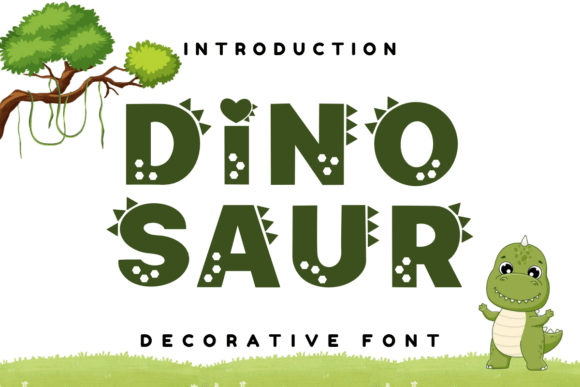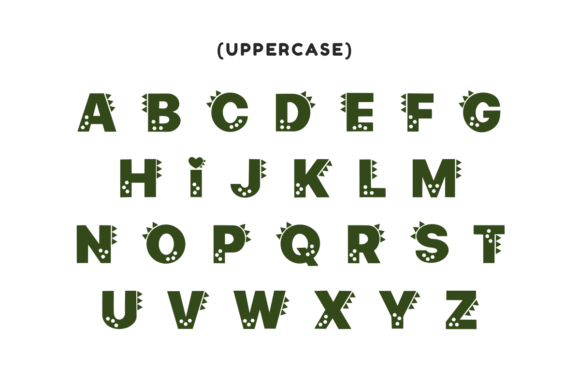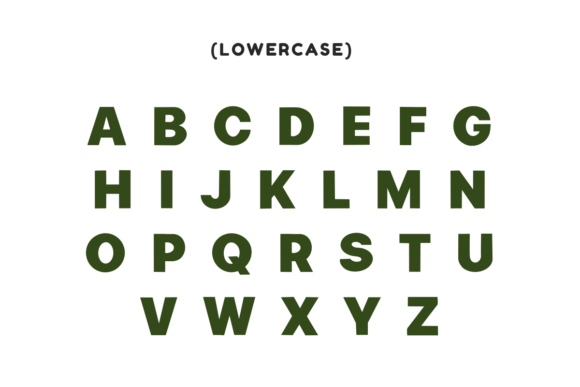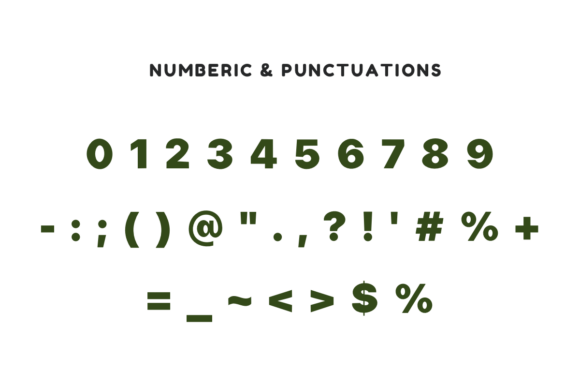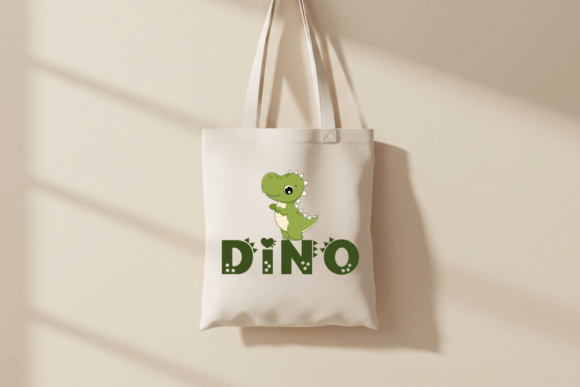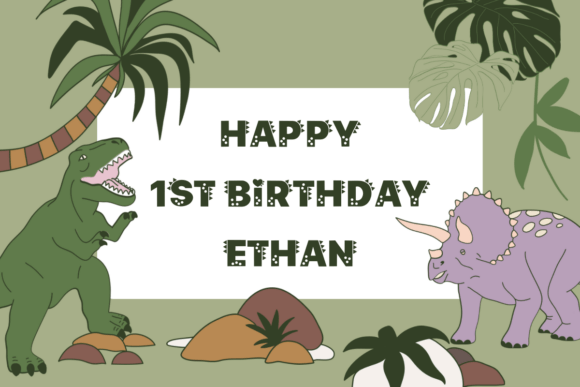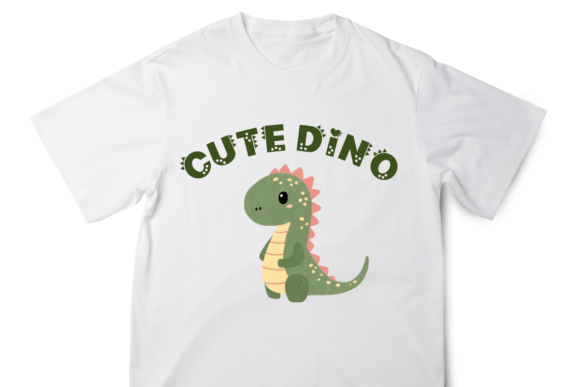
Dinosaur Font Font
Roar into creativity with Dinosaur, a bold and playful decorative font designed to delight kids and bring prehistoric fun to your designs. Featuring spiky embellishments and dino-scale textures inside each letter, this font is perfect for children’s projects, party invitations, educational materials, and themed branding. Its friendly and adventurous style makes it a favorite for anything dino-related!